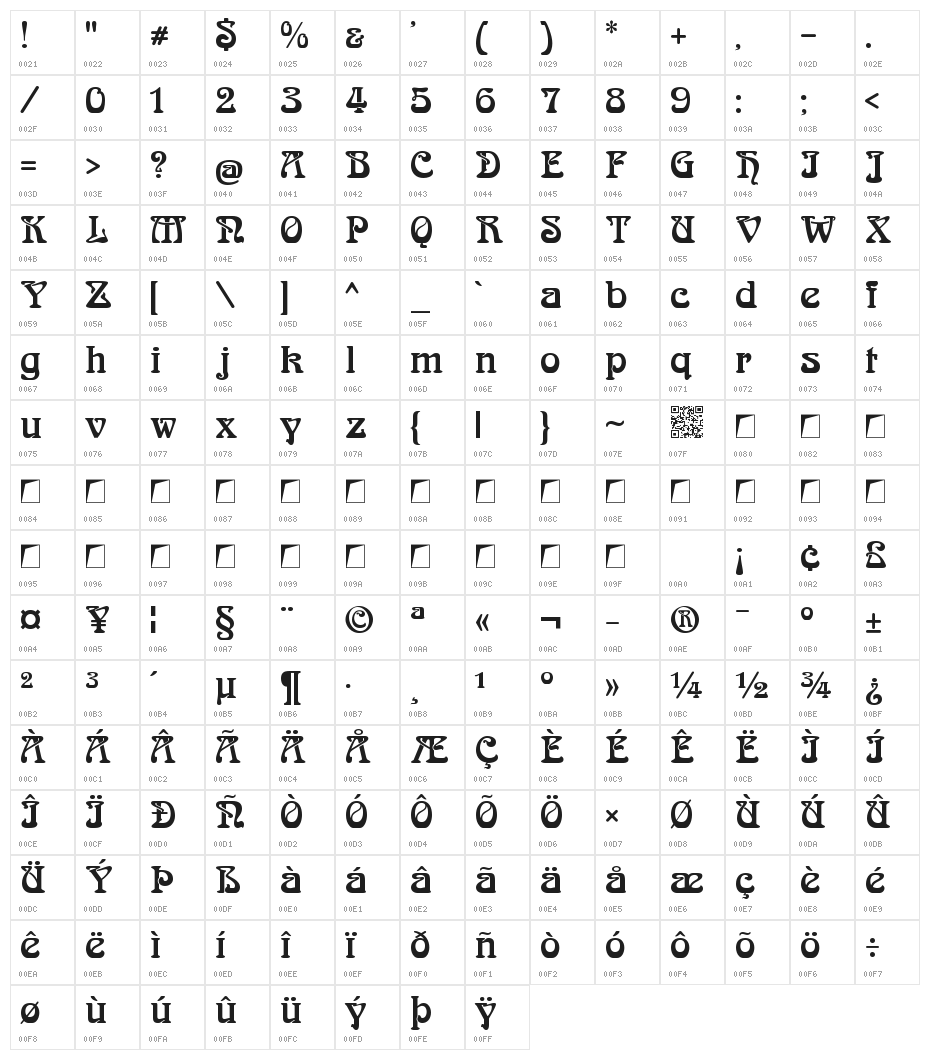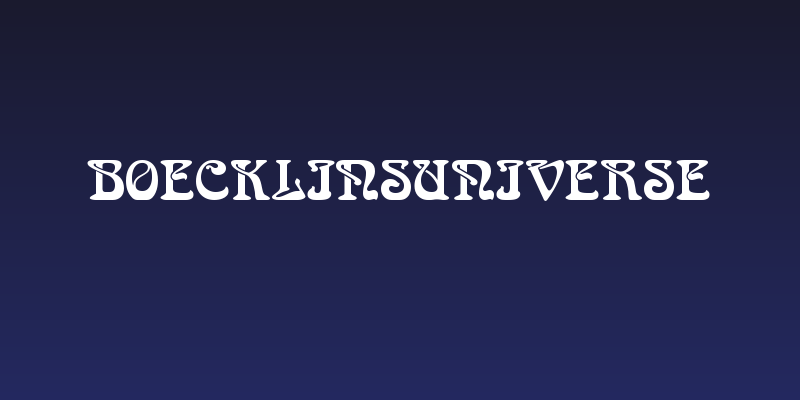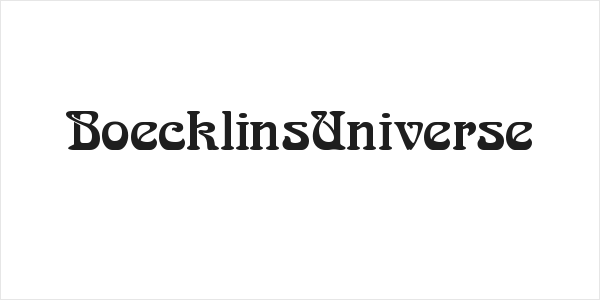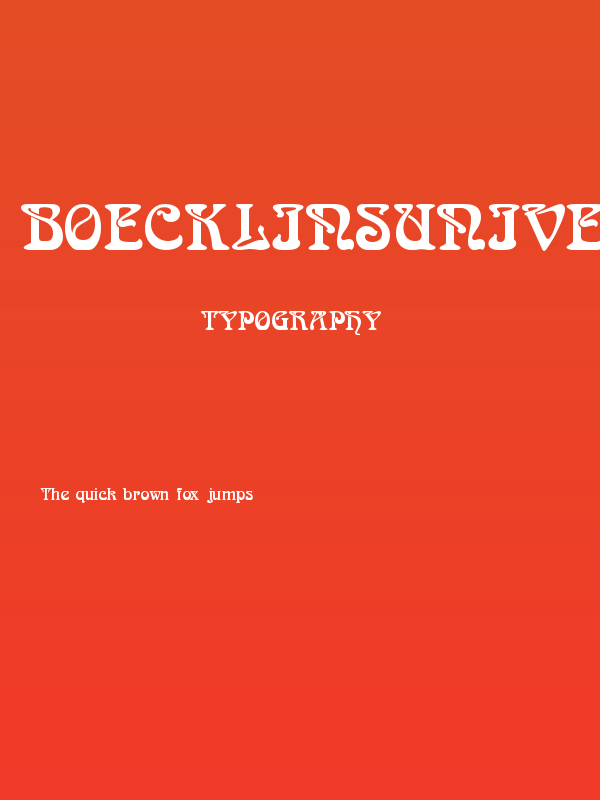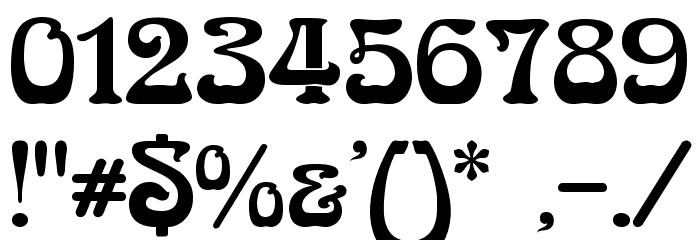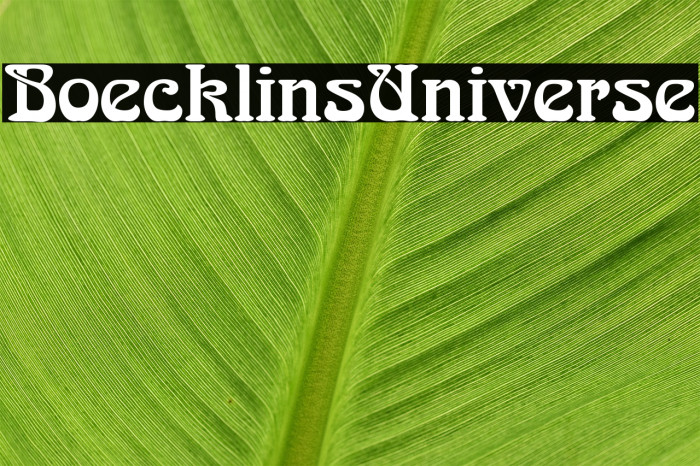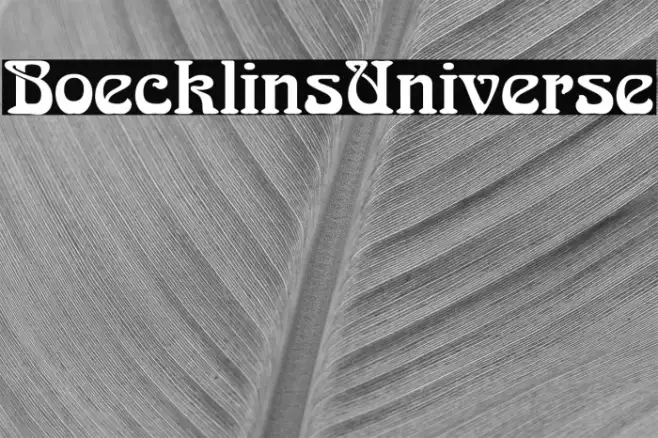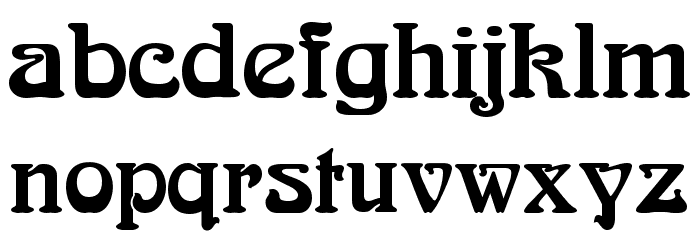
BoecklinsUniverse Font
BoecklinsUniverse Description
This font features a unique and artistic design with a decorative flair. The uppercase letters have an ornate, almost whimsical style, characterized by intricate curves and flourishes. The lowercase letters maintain a consistent theme, offering a playful yet sophisticated look. The numerals are bold and distinctive, matching the overall aesthetic. Special characters are creatively designed, adding to the font's charm. This typeface is ideal for projects that require a touch of elegance and creativity, making it perfect for artistic and decorative purposes.